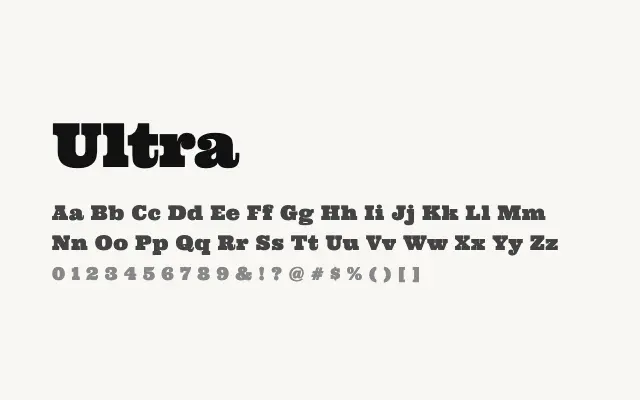
An extremely heavy display serif that commands attention through sheer weight and bold contrast.
Ultra occupies the fat-face end of the serif spectrum, delivering maximum visual impact in a single bold weight. It suits poster headlines, packaging, and any context where typographic dominance is the goal. Its limited weight range means it works best as a standalone display face rather than part of a text hierarchy.
Ultra is a heavy, high-contrast display serif with pronounced thick-thin stroke variation and robust slab-like serifs, pushing towards fat-face territory. Its singular bold weight makes it a pure attention-grabbing display tool.